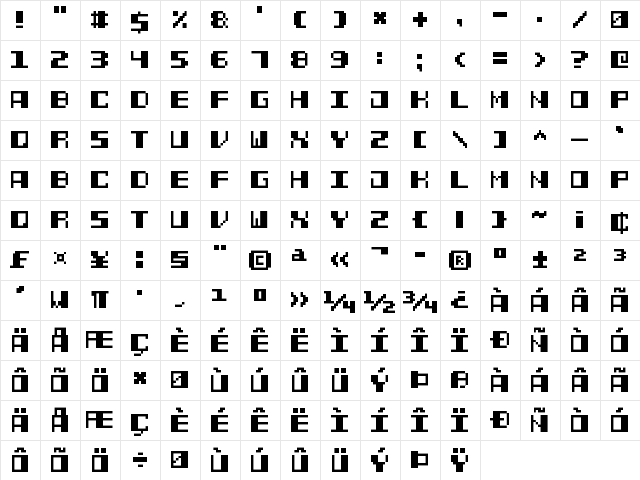
Power Pixel-7 Regular
| Foundry | Style-7 |
| Designer | Sizenko Alexander |
Design Context for Power Pixel-7 Typeface
Power Pixel-7 brings high-energy athletic personality to the page — its confident, muscular forms are built for impact.
A natural choice for gym brands, fantasy sports, jersey lettering, and action-driven headlines.
Pro Tip: Use Power Pixel-7 in all-caps headlines where its athletic energy can fully express itself. Pair with a solid, simple sans for supporting text.